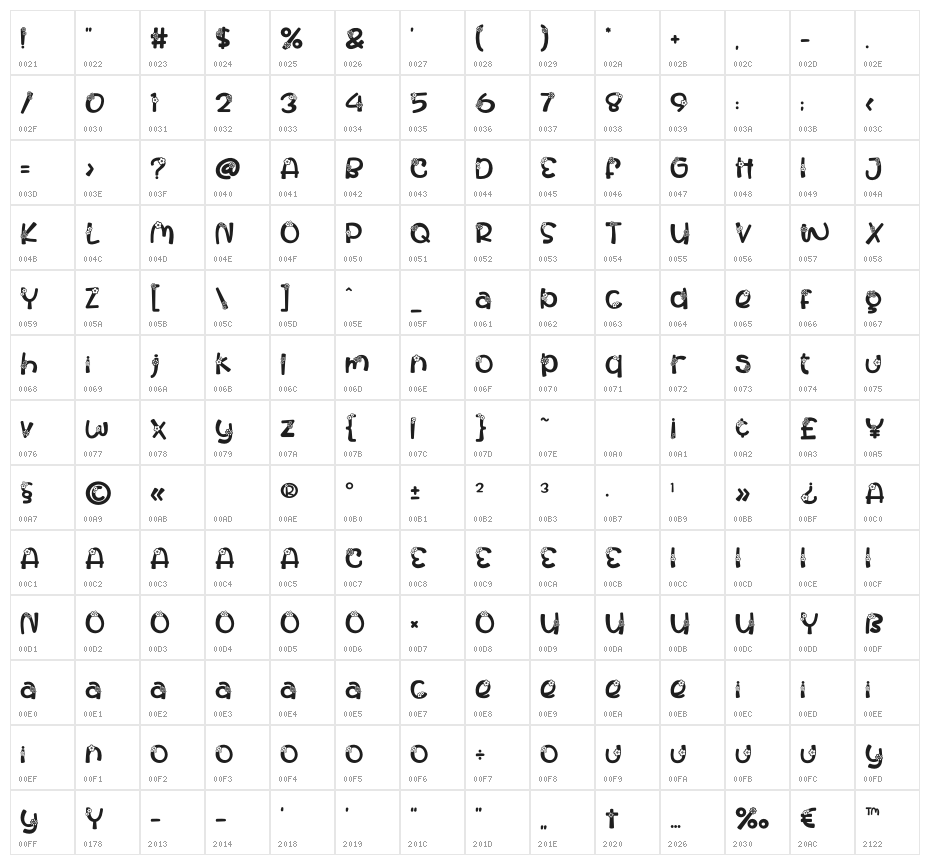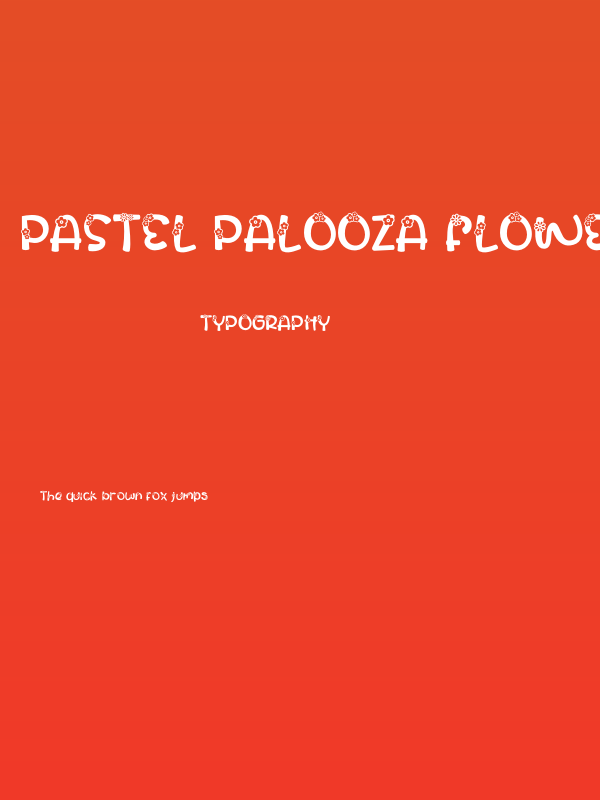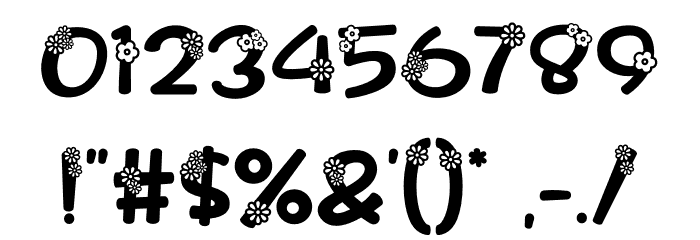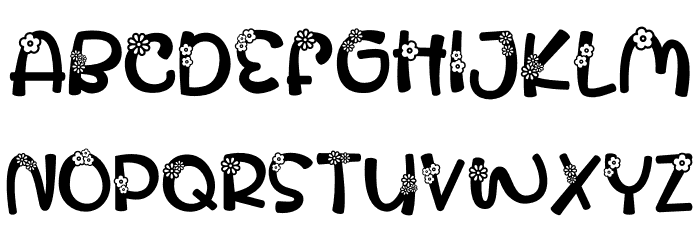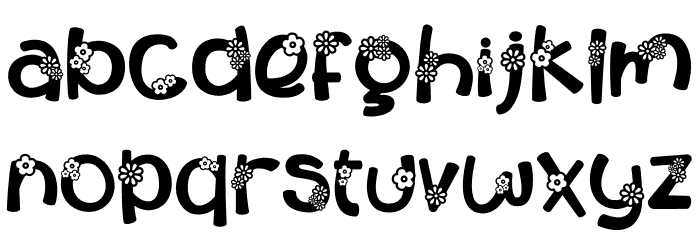
Pastel Palooza Flower Font
Pastel Palooza Flower Description
This whimsical and playful font features a unique floral design integrated into each character, creating a lively and cheerful appearance. The letters are bold and rounded, with decorative flowers adorning various parts of each character, adding a touch of nature-inspired charm. The font maintains a consistent thickness throughout, ensuring readability while still offering a decorative flair. The numbers and special characters are similarly styled, with floral elements enhancing their visual appeal. This font is perfect for projects that require a fun and engaging aesthetic.
| Proposed Projects | Ideal for children's books, greeting cards, party invitations, and playful branding projects. |